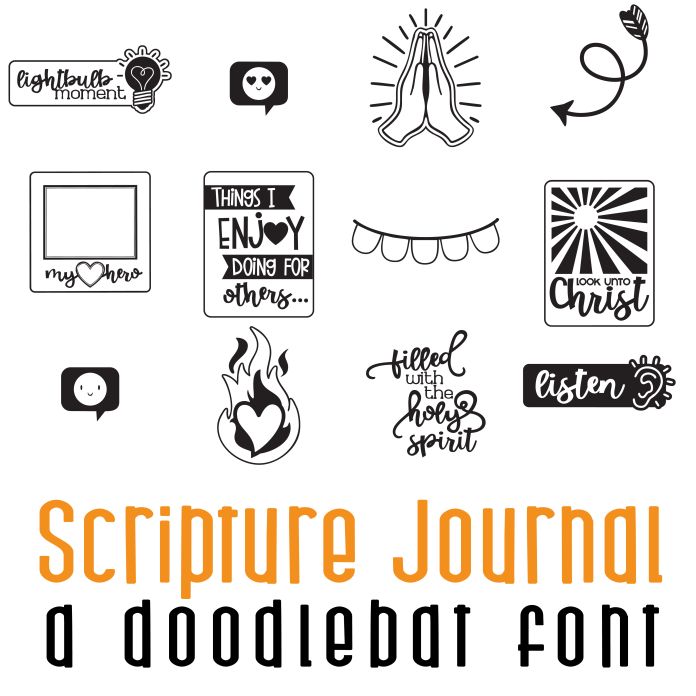
Scripture Journal Doodlebat Font
This beautiful journaling doodlebat features 26 spiritual journaling elements and imagery. Perfect for creating your own spiritual journal. Use for cards, crafts, scrapbooking, journaling and more!